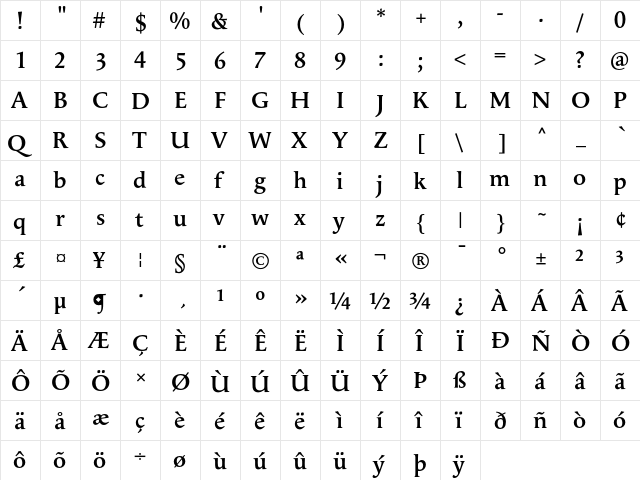
Apolline SemiBoldLF
Design Context for Apolline Typeface
Apolline takes a measured approach to typography — its balanced proportions and neutral character make it a reliable workhorse for both digital and print work. The heavy weight commands attention and anchors typographic hierarchies.